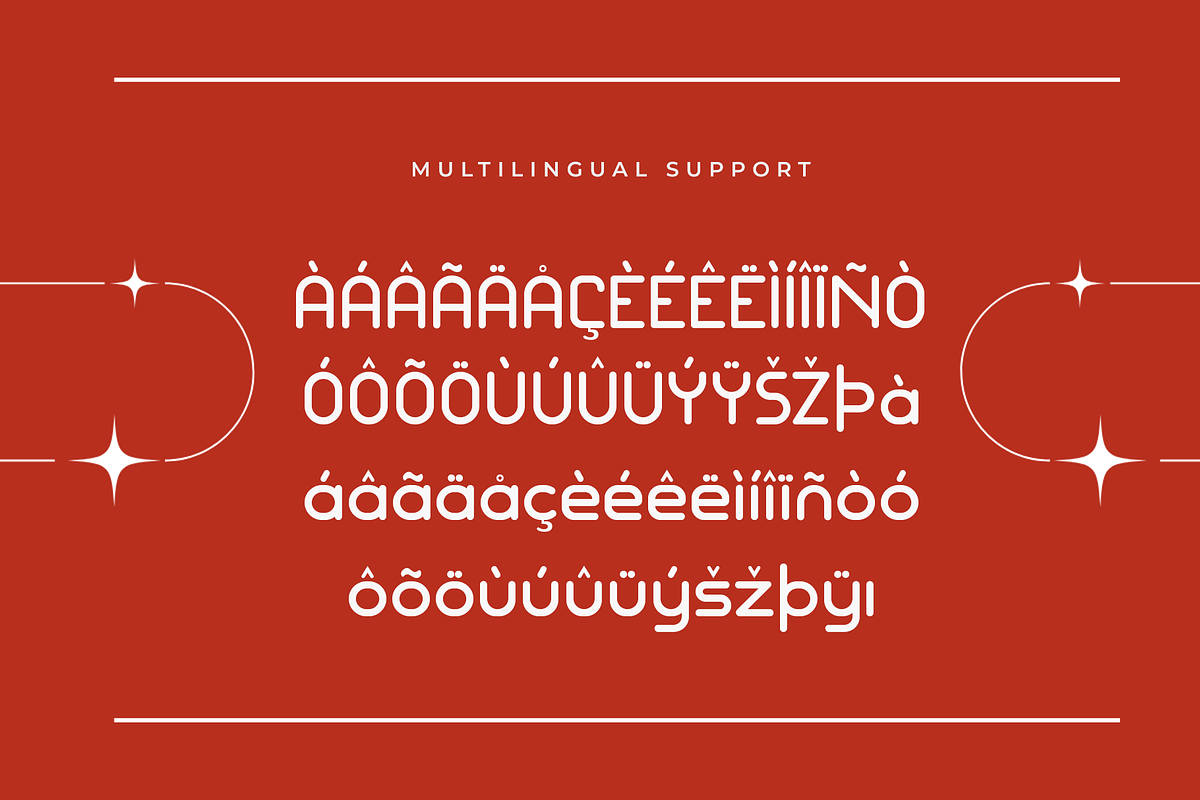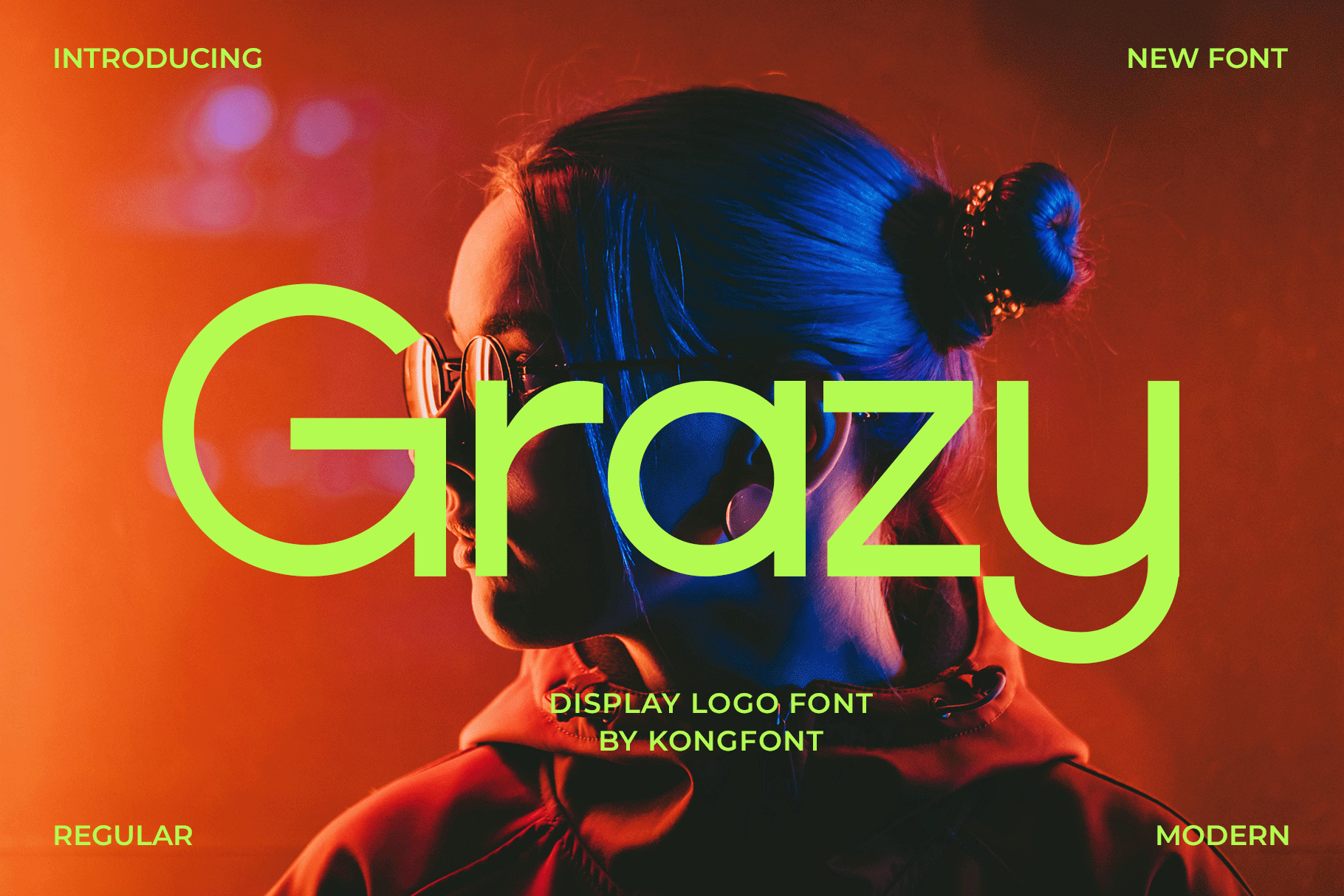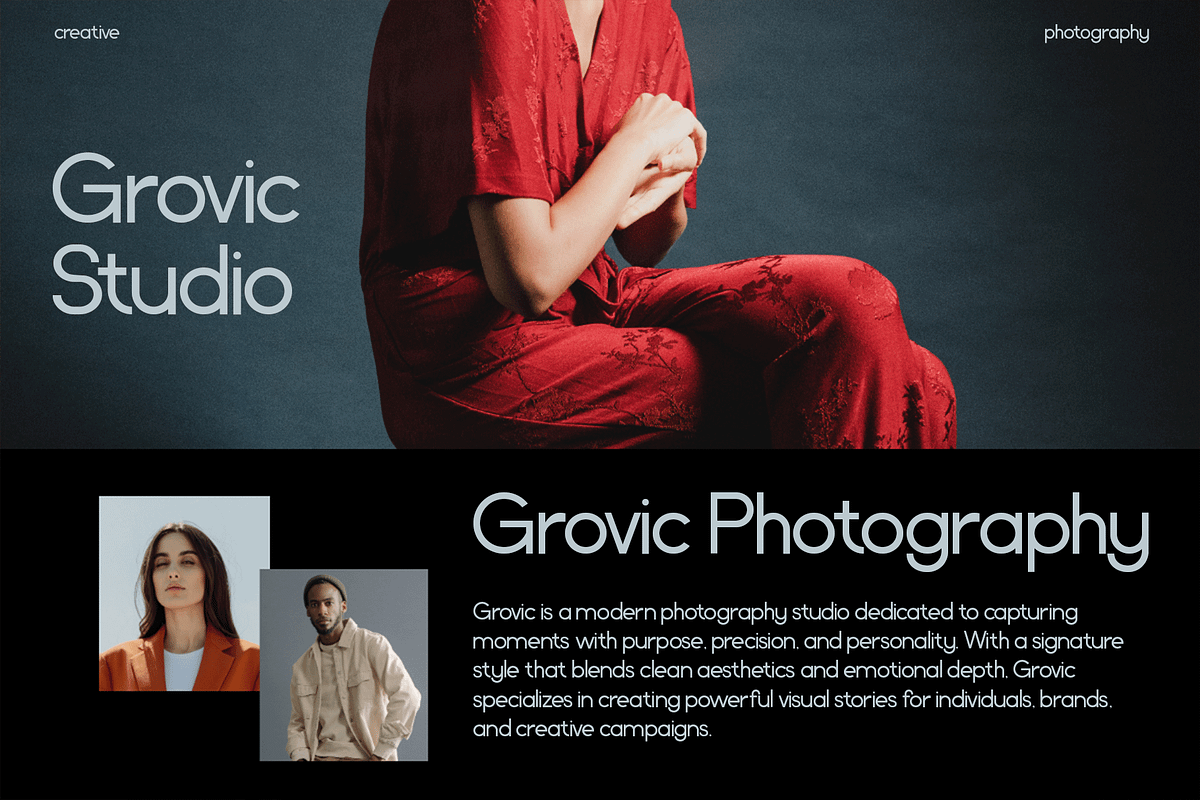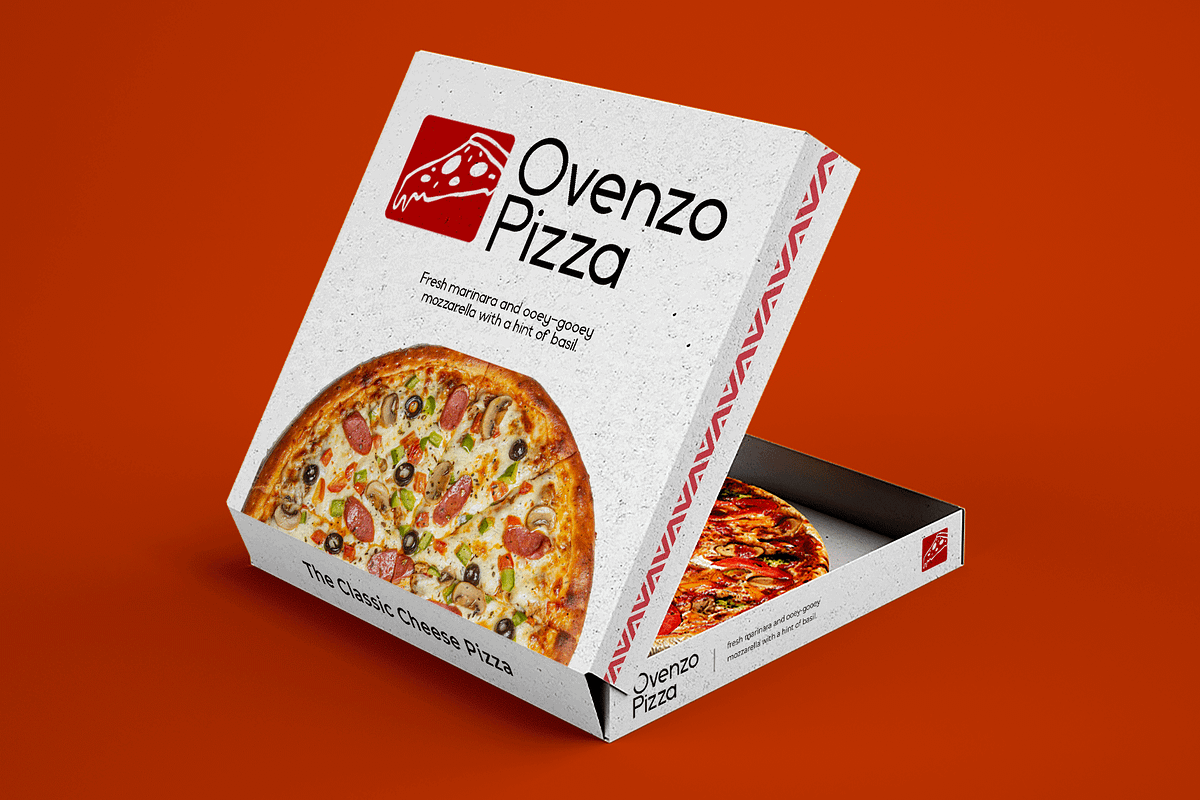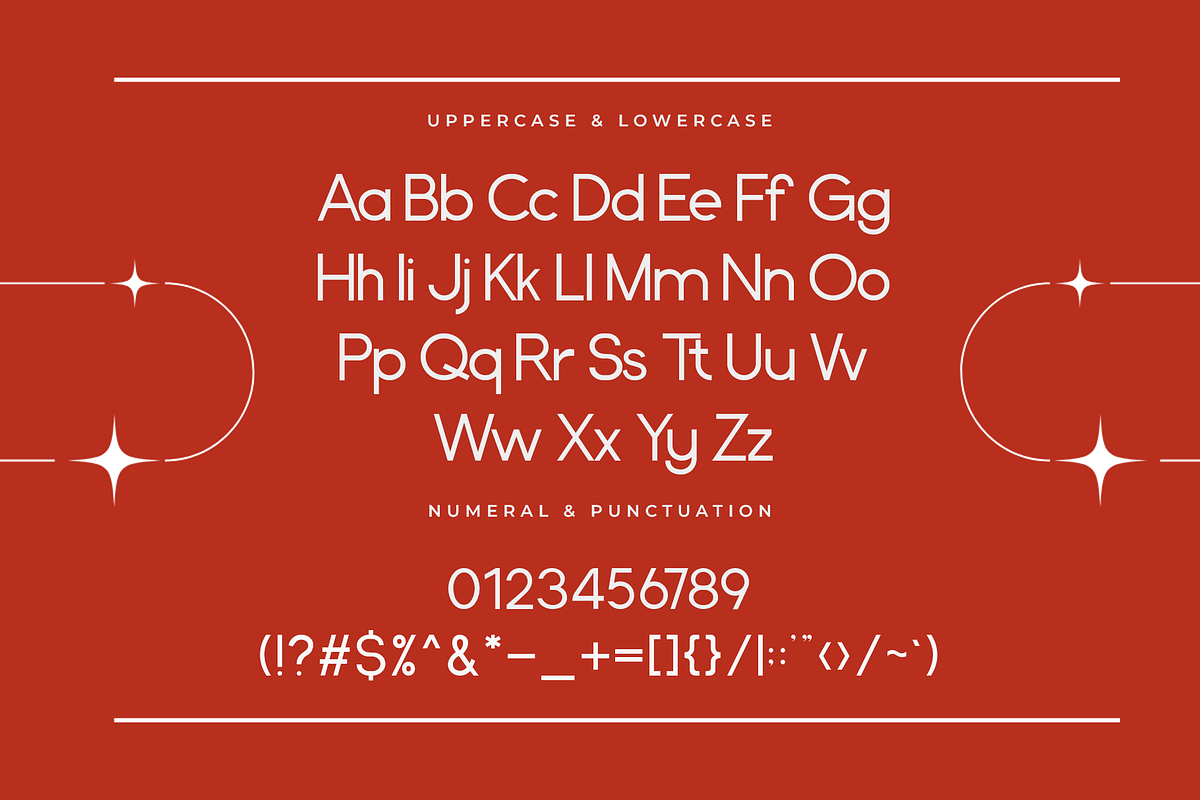
Grazy – A Bold Display Logo Font
Introducing Grazy, a bold and stylish display logo font designed to bring a wild, modern edge to your branding. With its unique character shapes and playful energy, Grazy is perfect for logos, branding projects, streetwear, headlines, posters, and anything that craves a touch of creative madness.
Its strong curves and unconventional style make Grazy stand out in any visual space, while still maintaining readability and versatility. Whether you're working on a dynamic logo or a daring product label, this font adds that punch of personality you need.
Let your creativity run wild and let Grazy be the voice of your boldest designs.